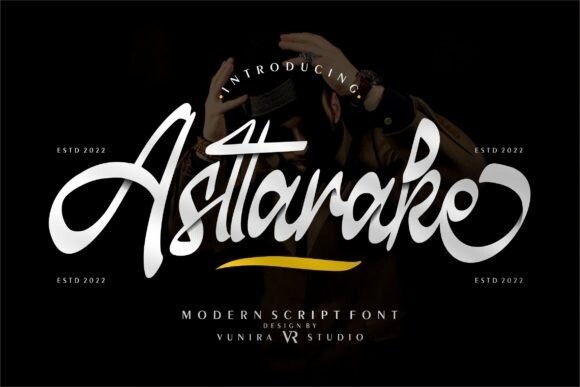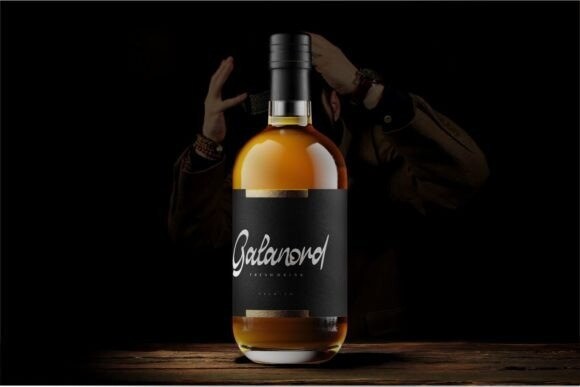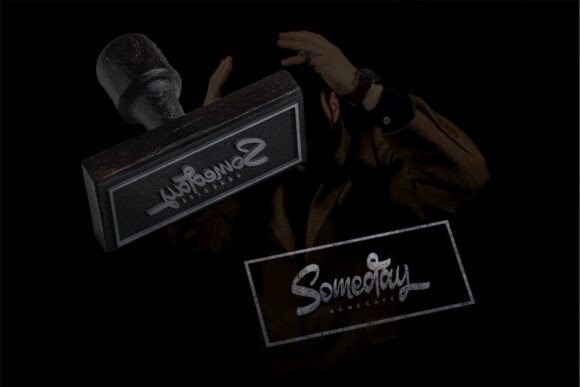
Asttarake Font
Asttarake is a modern script font with a calligraphy style. It will look so beautiful on invitations, greeting cards, branding materials, business cards, quotes, posters, and more!